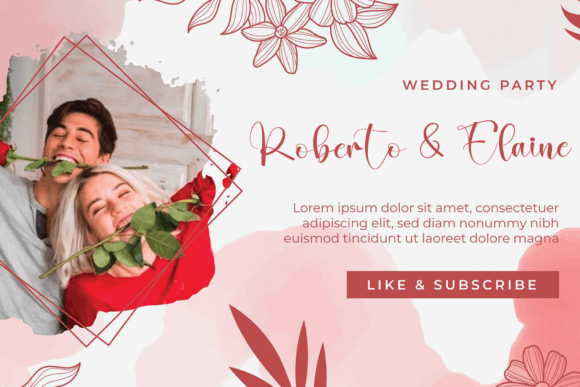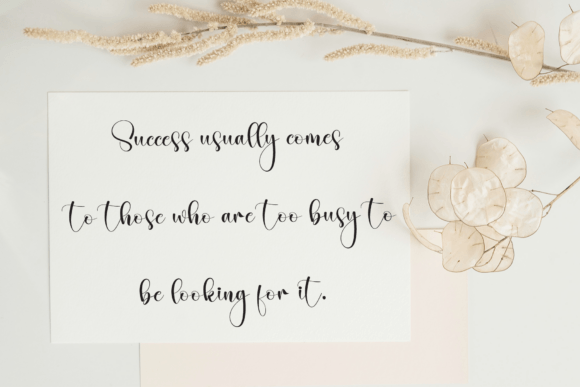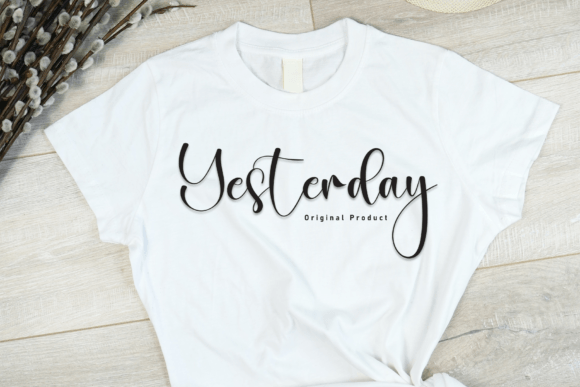
Introduction to Friends Birthday Font
Have you ever been working on a design project and wished you had the perfect font to add that extra special touch? Perhaps it’s a birthday card, a party invitation, or a social media post celebrating a friend’s special day. Whatever the occasion, the right font can make all the difference in setting the tone and conveying your emotions.
One font that’s sure to bring a smile to your face is the Friends Birthday Font. Its playful, handwritten style is designed to feel personal and joyful, making it perfect for any celebration where you want to add a cheerful touch.
Key Features of Friends Birthday Font
- Unique, cursive design perfect for adding a personal touch to birthday invitations, cards, and party decorations
Honest Review: Friends Birthday Font
As a designer, I’m always on the lookout for unique and creative resources to elevate my projects. The Friends Birthday Font caught my eye with its playful and fun design, making it perfect for any birthday-themed project.
- ✨ High-quality design that’s perfect for birthdays and parties
- ⚠️ Limited font styles and variations, which might limit its use in more complex designs
- ⚠️ May not be suitable for professional or corporate designs, due to its playful and casual nature
Overall, I think the Friends Birthday Font is a great resource for designers looking to add a touch of fun and whimsy to their projects. While it may have some limitations, its high-quality design and free download make it a valuable addition to any design collection.
One of the benefits of using the Friends Birthday Font is its transparent background, making it easy to overlay on top of images or other design elements. You can also customize the font by adjusting its size, color, and style to fit your design needs.
To get the most out of the Friends Birthday Font, use it for birthday invitations, party decorations, and social media graphics. You can also use it to create custom birthday cards, posters, and flyers. Remember to experiment with different font sizes and colors to add visual interest to your designs.